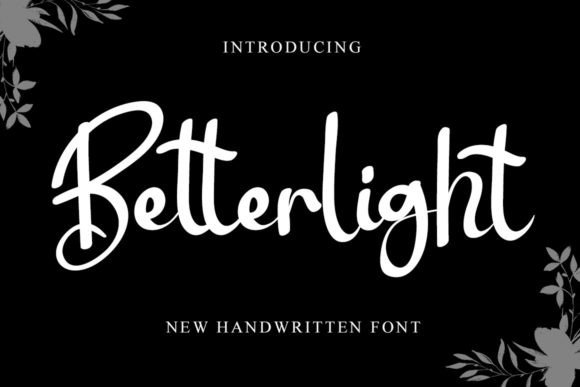
In a world of digital expression, your words have the power to paint vibrant pictures, to evoke emotions, and to leave a lasting impression. But what if your words could dance on the page, if they could leap and twirl and transport your readers to another realm? Enter Betterlight Font, the enchanting script font that will transform your texts into captivating works of art.
Picture this: your social media posts, adorned with Betterlight's elegant curves, captivating your audience with their sheer beauty. Your website, infused with Betterlight's playful charm, inviting visitors to explore every corner and discover hidden treasures. Your marketing materials, empowered by Betterlight's timeless appeal, leaving an indelible mark on the minds of your customers.
Crafted with meticulous care by the talented Eddygoodboy, Betterlight is more than just a font; it's an experience. Its smooth lines flow seamlessly, creating a sense of harmony and balance that soothes the soul. Its delicate serifs add a touch of sophistication, while its playful curves inject a dose of whimsy. Together, they create a font that is both timeless and modern, classic and fresh.
The versatility of Betterlight knows no bounds. It dances gracefully across wedding invitations, adding a touch of romance and elegance to life's most special moments. It shines on posters and flyers, capturing attention with its bold and eye-catching presence. It lends its charm to logos and branding, creating identities that are both memorable and distinctive. And it elevates digital designs, bringing a handcrafted feel to websites, social media graphics, and e-books.
But Betterlight is not just a versatile font; it's an emotive font. Its soft, sweeping strokes evoke a sense of nostalgia, reminding us of simpler times. Its gentle curves create a feeling of warmth and comfort, like a warm embrace on a cold day. And its playful spirit brings a smile to the face, reminding us of the joy and wonder that life has to offer.
If you seek a font that transcends the ordinary, that captivates your audience and leaves them spellbound, then Betterlight is your answer. With its timeless beauty, versatile charm, and emotive power, Betterlight is the font that will transform your words into works of art. Unleash the magic of Betterlight today and watch your words come alive!